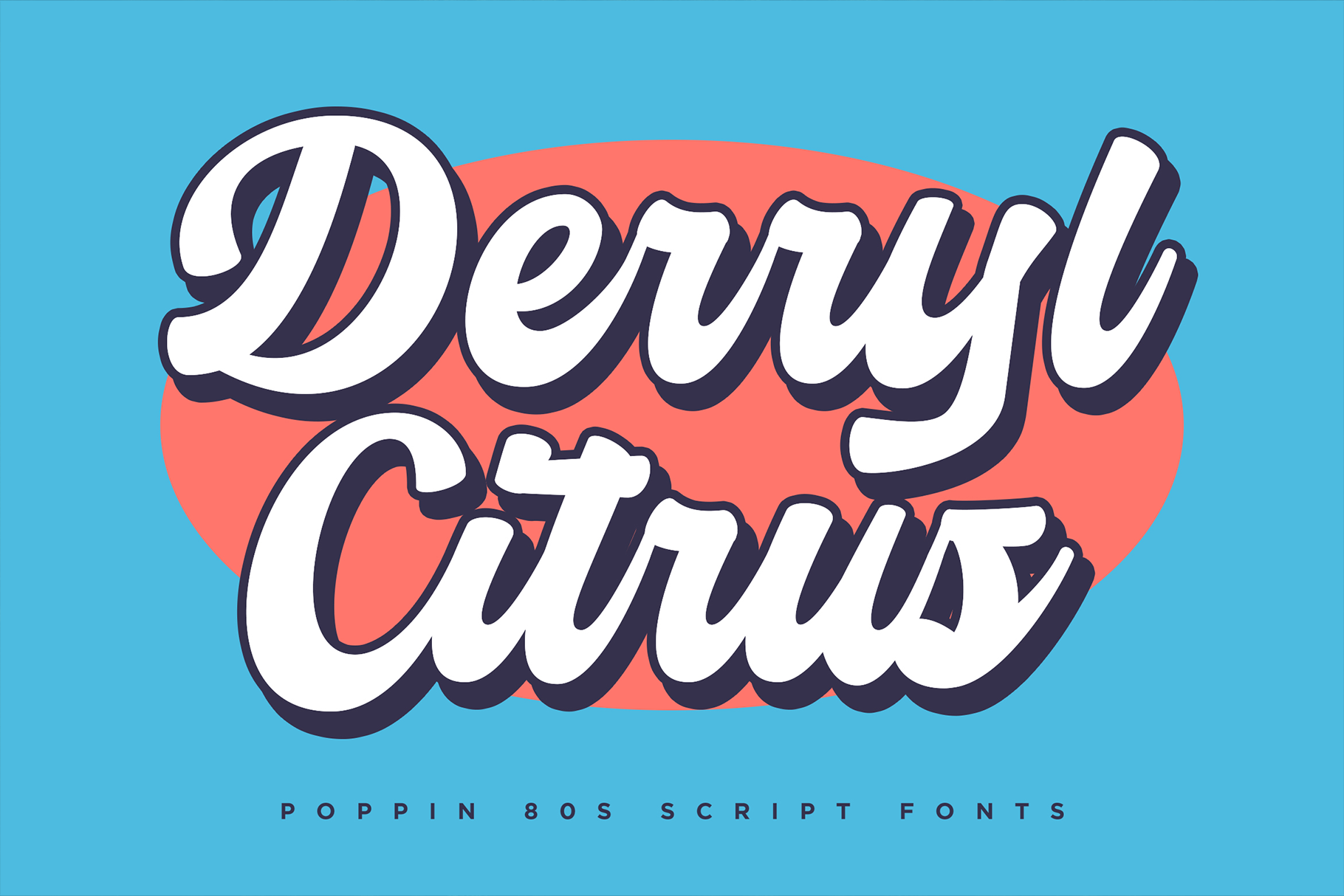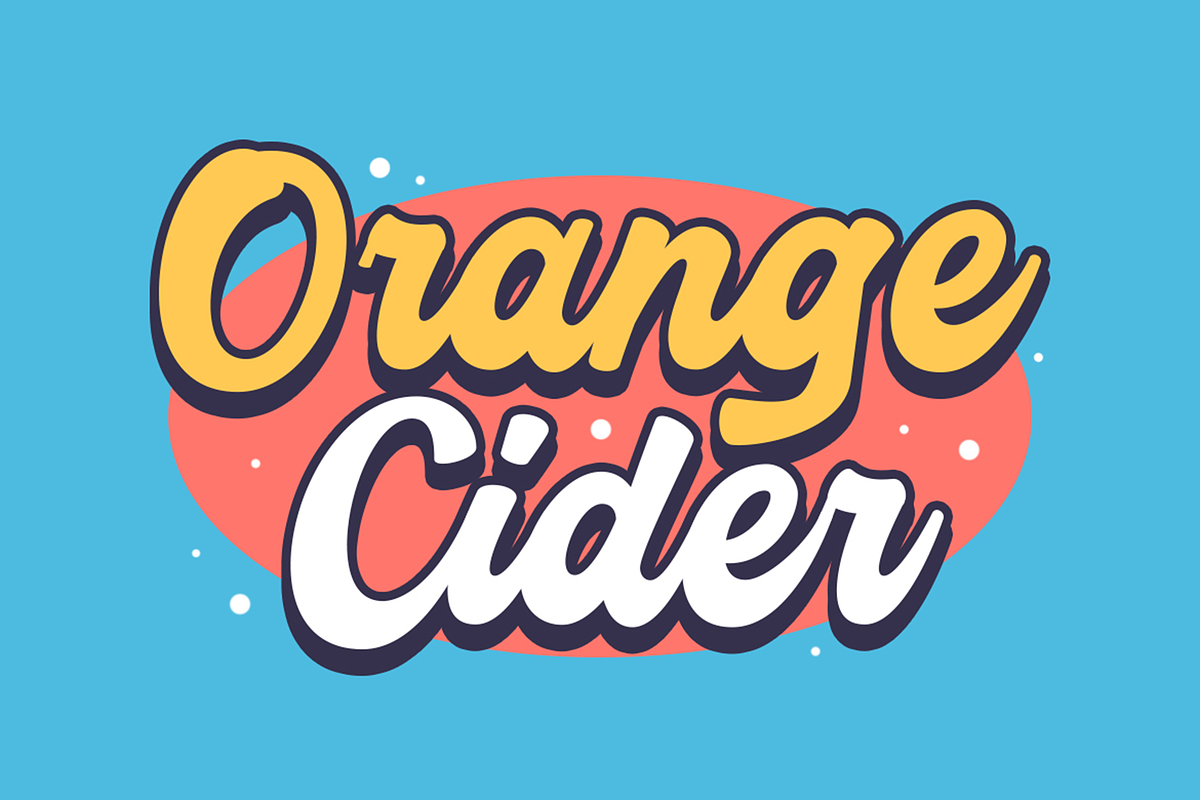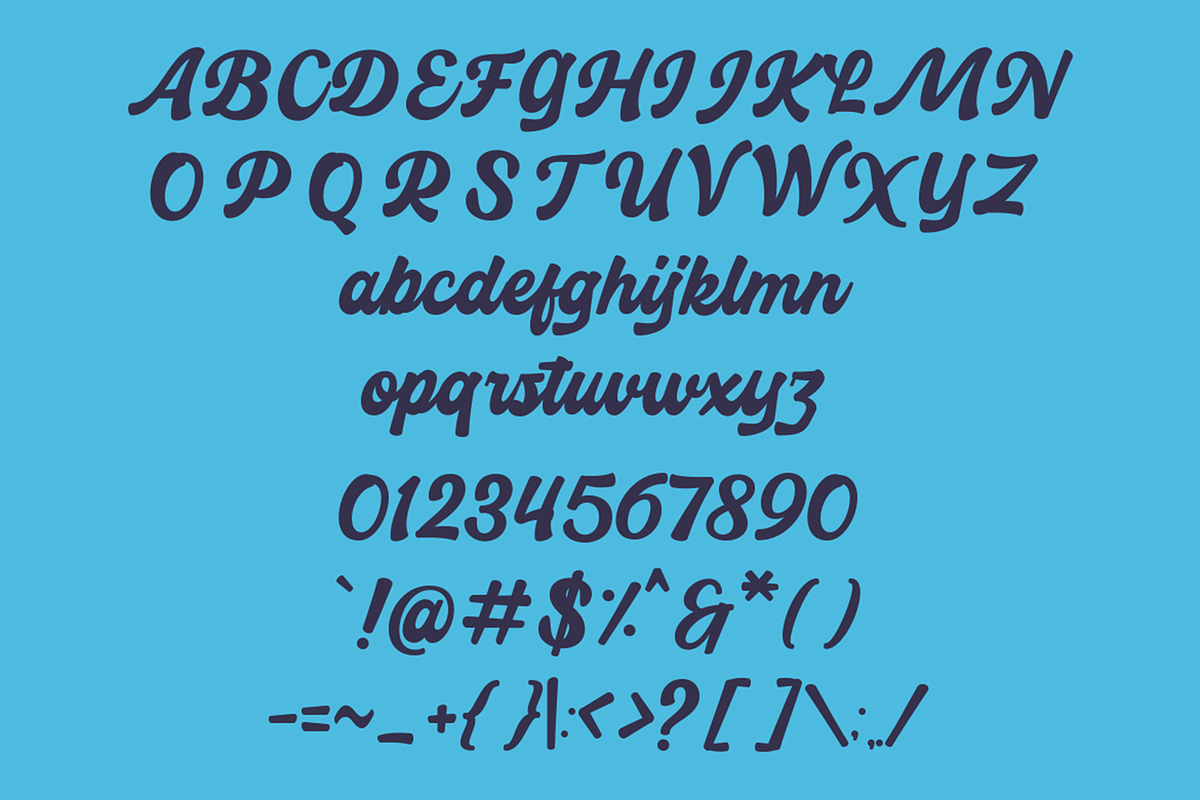
Derryl Citrus – 80s Script Fonts
Poppin’ up your design more with our Derryl Citrus, 80s vibe fonts for your visual time machine.
Perfectly fit for vintage, retro, classical, sign painting, apparel, food and beverages, social media content, logo, branding, and many more.